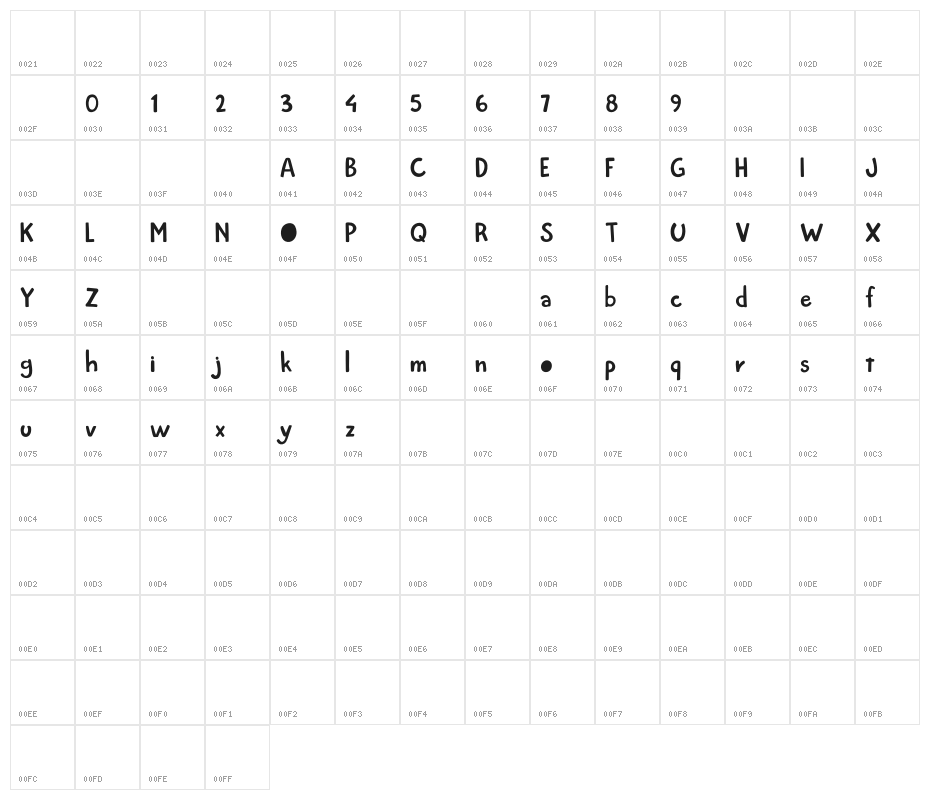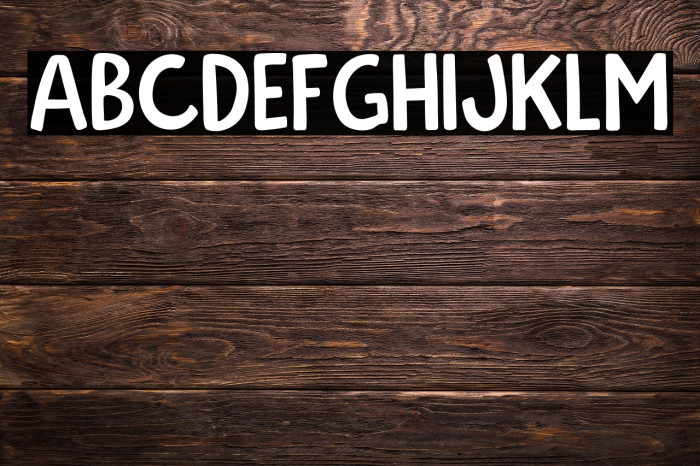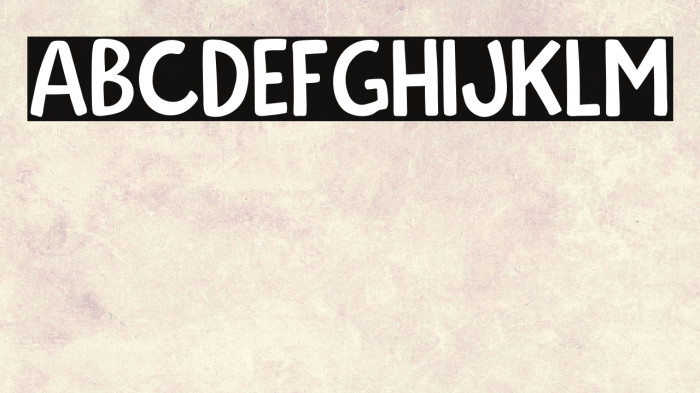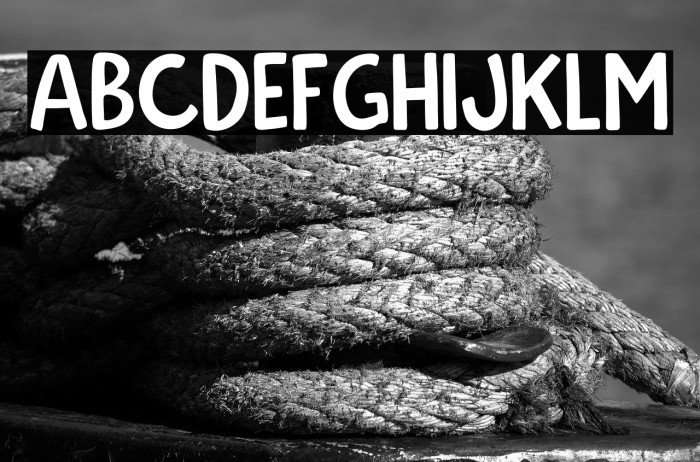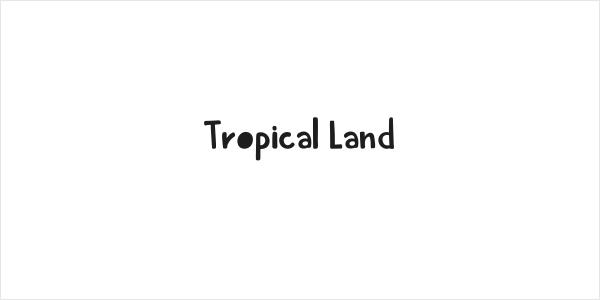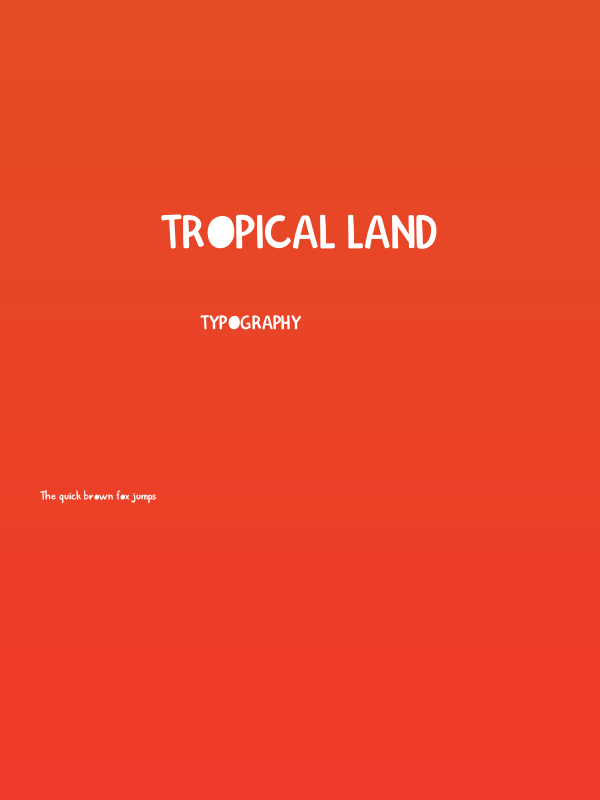
Tropical Land Font
Tropical Land Description
This playful and rounded font exudes a sense of fun and whimsy, making it perfect for projects that aim to convey a lighthearted and approachable tone. The characters are bold and slightly irregular, adding a touch of uniqueness and charm. The rounded edges and consistent stroke width contribute to its friendly appearance, while the slightly condensed letterforms ensure readability. This font is ideal for children's books, playful branding, and any design that requires a touch of joy and creativity.
Overall StylePlayful
Proposed ProjectsChildren's books, playful branding, creative posters, and invitations.